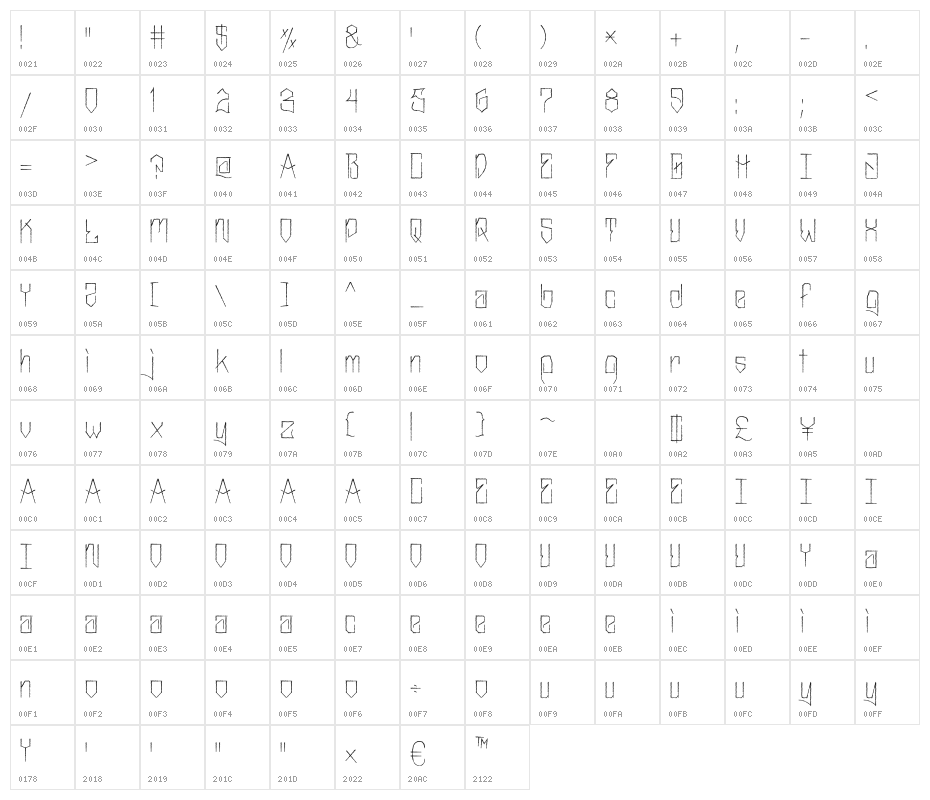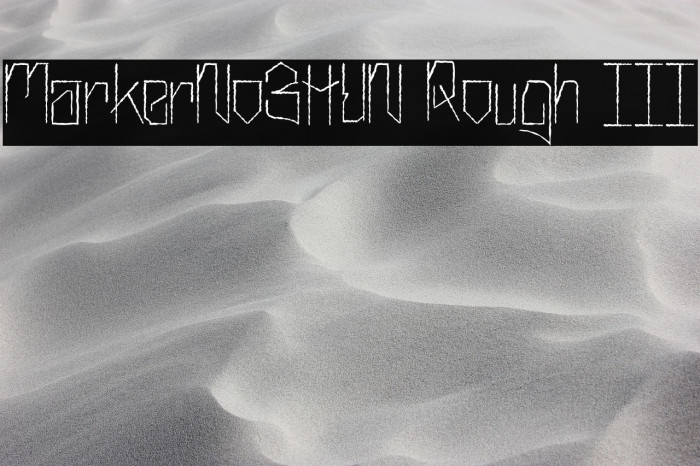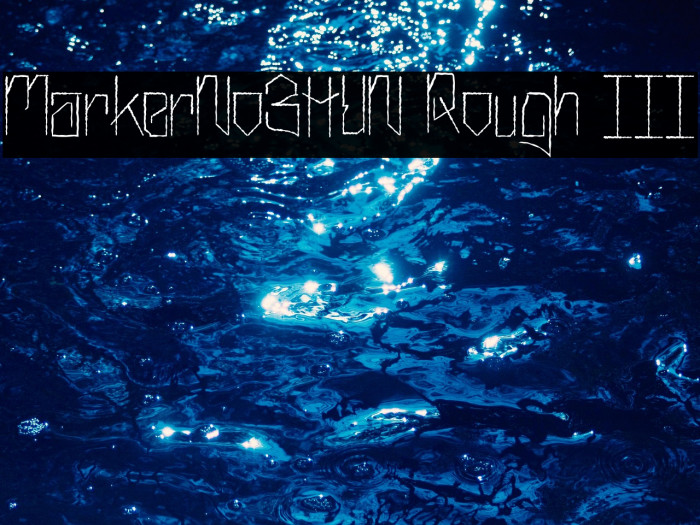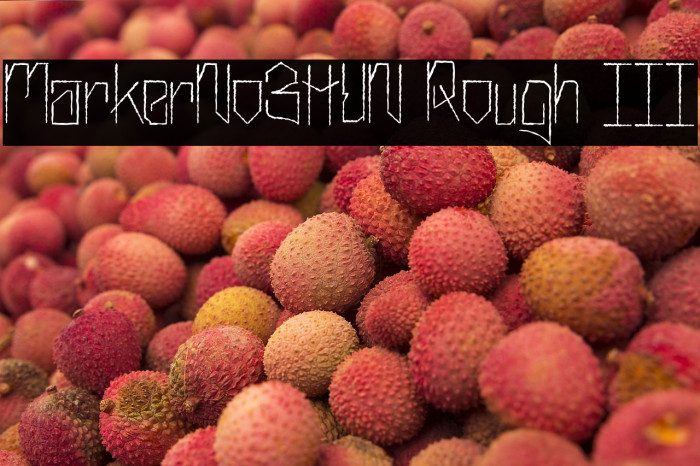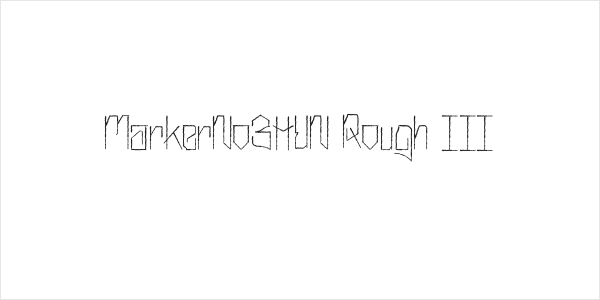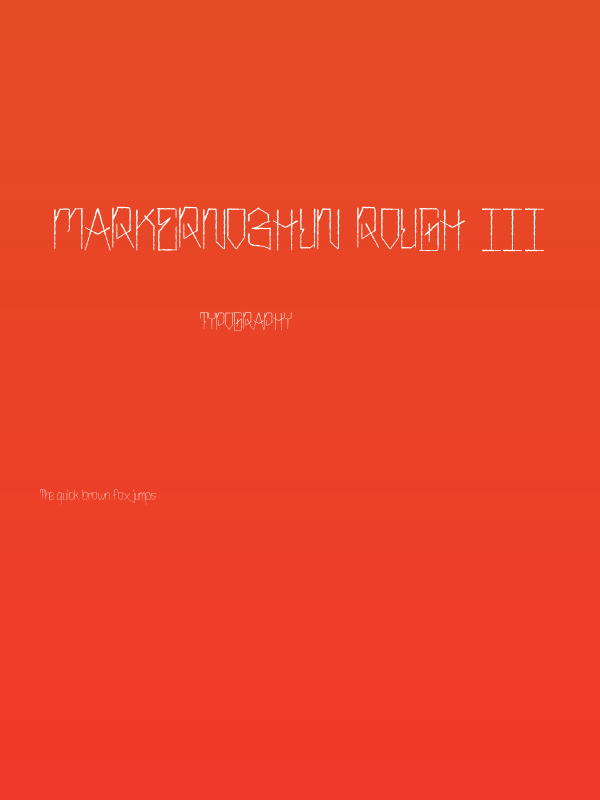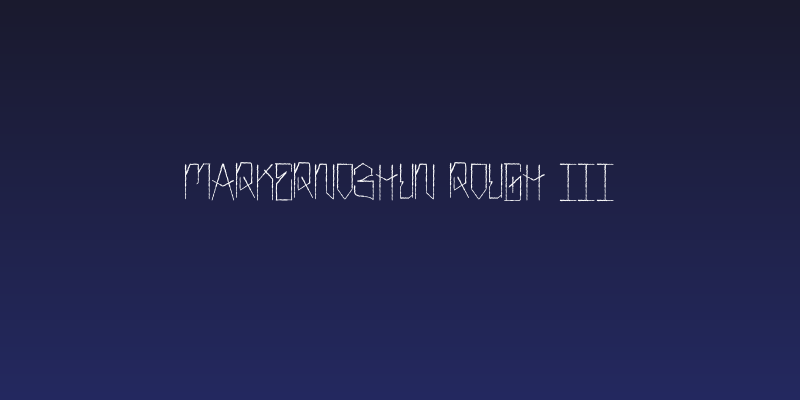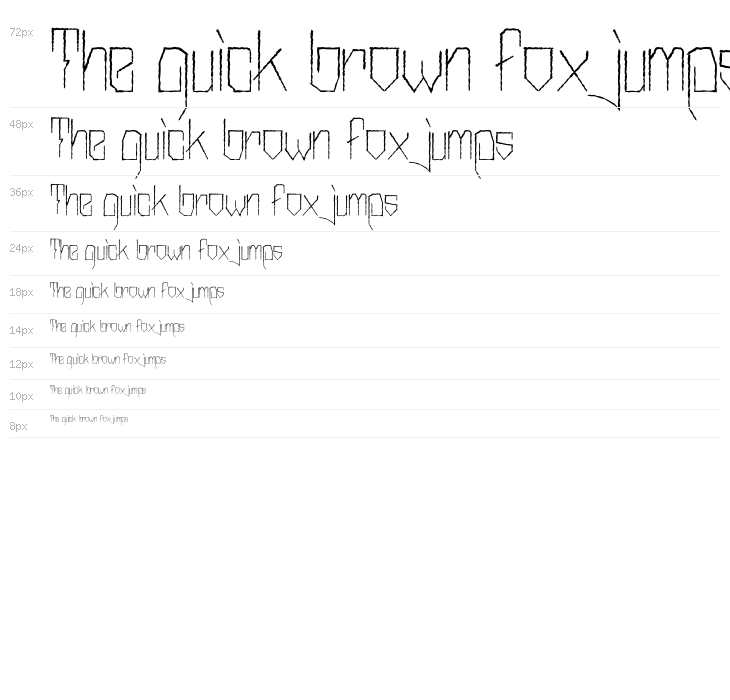
MarkerNo3HUN Rough III Font
MarkerNo3HUN Rough III Description
This font features a rough, hand-drawn aesthetic with a distinct, edgy appearance. The characters are tall and narrow, with sharp angles and irregular strokes that give it a raw, unfinished look. The uppercase and lowercase letters maintain a consistent style, with jagged edges and a slightly chaotic feel. Numbers and special characters follow the same design principles, ensuring a cohesive look across all glyphs. The font's unique style makes it stand out, offering a gritty, urban vibe that is both modern and artistic.
| Overall Style | Modern, Artistic |
| Use Case | Logos, Posters, Album Covers |
| Proposed Projects | Ideal for street art-inspired designs, edgy posters, album covers, or any project needing a raw, artistic touch. |